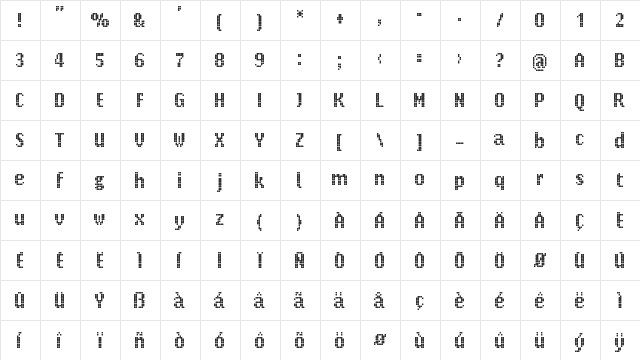
Parisienne Small Bold Regular
| Designer | Jeffrey Visser |
Design Context for Parisienne Small Bold Typeface
Parisienne Small Bold takes a measured approach to typography — its balanced proportions and neutral character make it a reliable workhorse for both digital and print work. The heavy weight commands attention and anchors typographic hierarchies.